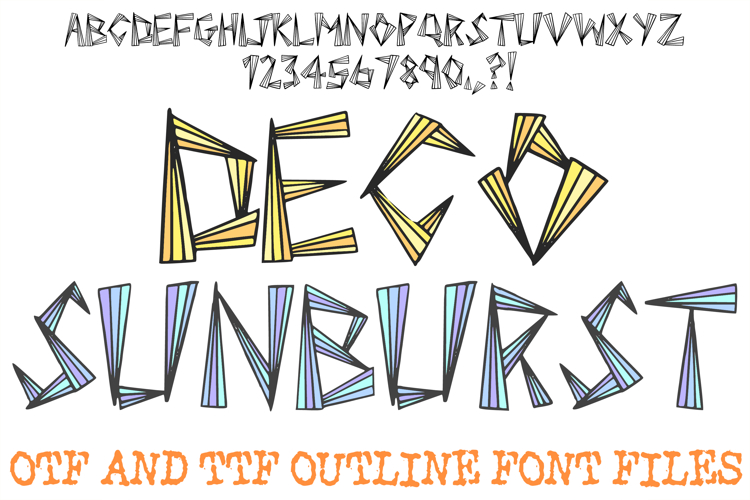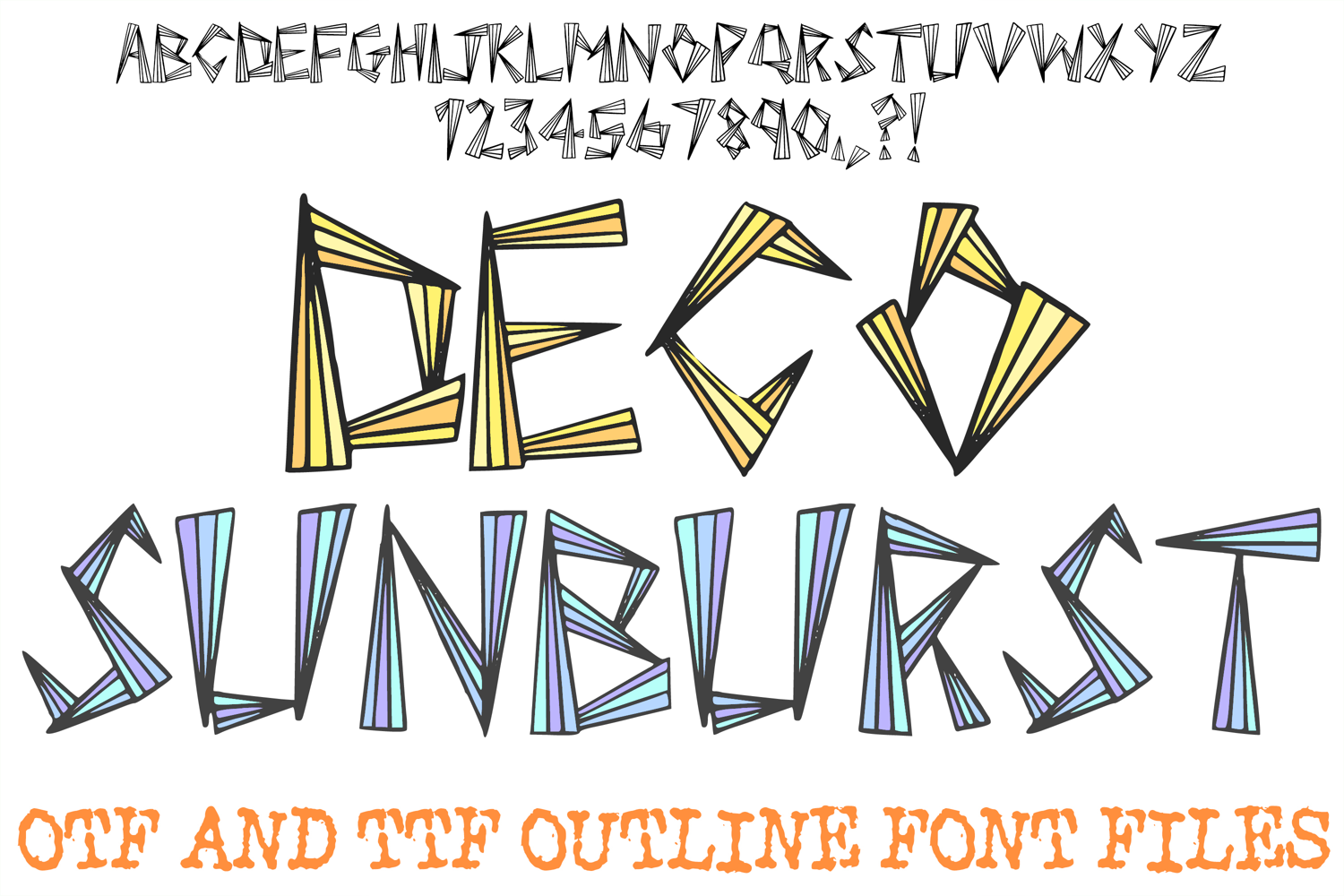
Step into an era of bold geometry and high-energy style with the Deco Sunburst Font. This striking display typeface features sharp, angular letterforms heavily inspired by classic art deco architecture and intricate origami folds. The defining feature of this layout is the series of fine, radiating lines that fan out within each structural triangle, creating a spectacular sunburst effect that brings an immediate sense of movement, depth, and vintage sophistication to headlines.
Delivered as an installable typeface, this intricate vector outline structure provides boundless creative potential. It acts as an exceptional resource for a designer who wants to apply metallic gradients (like gold, bronze, or silver), drop shadows, or contrasting solid backgrounds to make the linework pop. The clean, geometric art scales flawlessly across all creative software, ensuring razor-sharp results for both modern digital layouts and high-end physical prints.